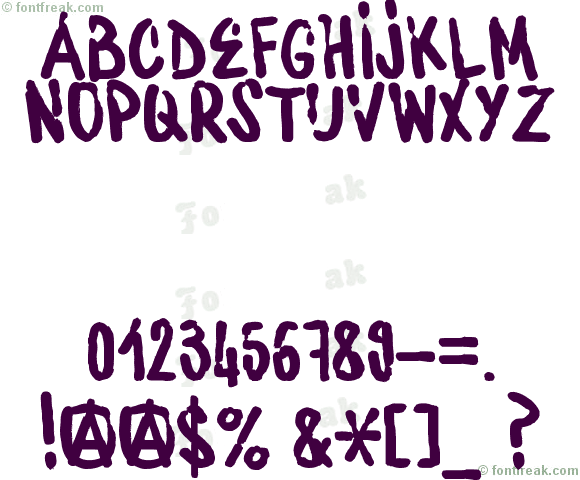
WATERBASE_CRE
The WATERBASE_CRE font by FRED CRE is a captivating display typeface that blends a playful aesthetic with a unique artistic flair. This handwritten style font exhibits irregular stroke weights, giving it an organic and spontaneous look that feels both inviting and dynamic. The letters are characterized by their slightly exaggerated forms and uneven spacing, which contribute to a sense of movement and creativity. This makes WATERBASE_CRE an excellent choice for projects that aim to convey a sense of fun or a relaxed vibe.
The visual characteristics of the WATERBASE_CRE font include a loose, casual appearance with a slightly whimsical touch. The strokes are thick and bold, yet they maintain a certain lightness that prevents them from feeling overwhelming. This font's design allows it to stand out in various applications, making it ideal for use in vibrant wedding invitations, eye-catching movie posters, trendy restaurant menus, and engaging social media graphics. Each letter’s unique design element can evoke a sense of joy and creativity, making it a versatile choice for various promotional materials.
Target audiences for the WATERBASE_CRE font include graphic designers who are looking to add a distinctive touch to their projects, small business owners seeking to create memorable branding, and content creators aiming to enhance their visual storytelling. The font's playful nature makes it particularly appealing to brands in the creative industries, such as art, food, and entertainment.
Ultimately, what sets the WATERBASE_CRE font apart is its ability to infuse personality into any design. With its artistic flair and versatility, the WATERBASE_CRE font free download is a fantastic addition to any designer's toolkit, enabling them to create standout visuals that resonate with their audience.